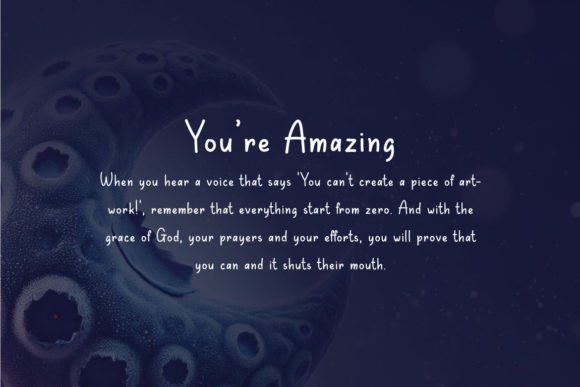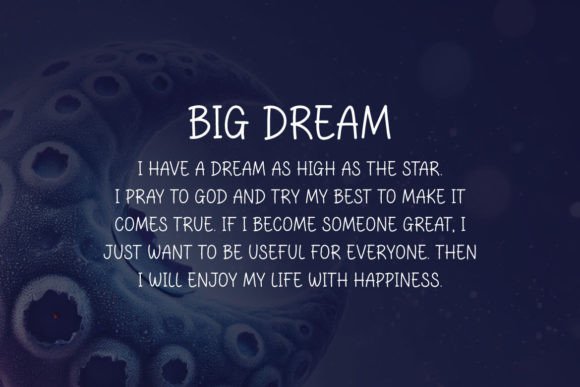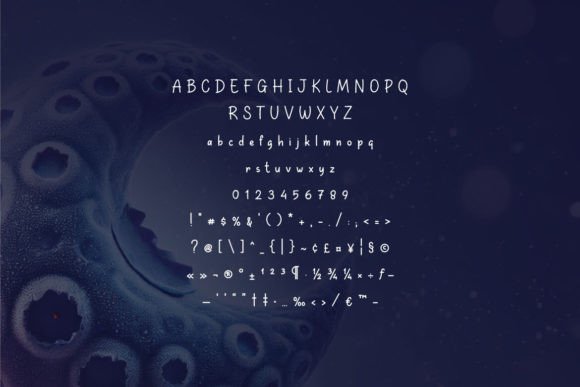
Introduction to Moonberry Font
Add a touch of sweetness to your designs with **Moonberry**, the cute handwritten comic font that brings joy and charm to any project.
Designed with playful curves and a whimsical style, **Moonberry** is perfect for comic strips, childrenโ€™s books, greeting cards, and any creative project that needs a fun, friendly vibe Its delightful and soft strokes give a handwritten feel that adds personality to your text, perfect for capturing attention and conveying warmth.
Key Features of Moonberry Font
Why Choose Moonberry Font?
Moonberry Font offers exceptional quality and versatility, making it a valuable addition to your design toolkit. Whether you’re creating for personal projects or commercial use, Moonberry Font delivers professional results.